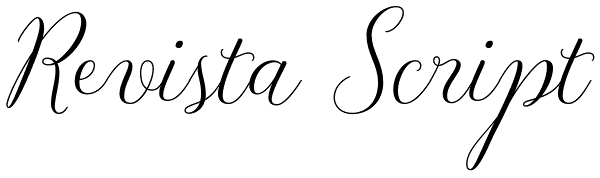
Revista
Revista is a typographic system that brings together all the features to undertake any fashion magazine-oriented project. The font harmoniously blends different styles into a single big family, which consists of a Didone uppercase and small caps...